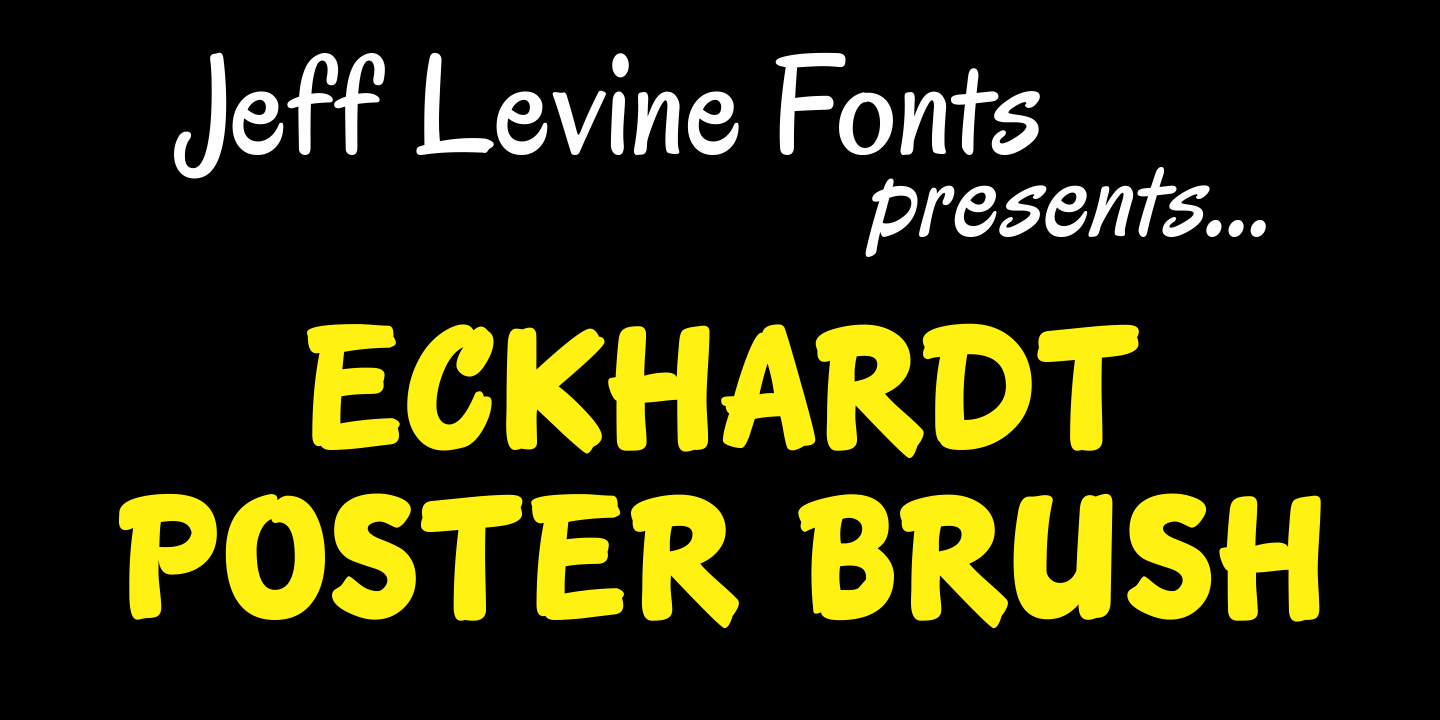
Eckhardt Poster Brush
Eckhardt Poster Brush JNL is part of a series of fonts emulating many of the various styles of hand lettering employed by sign painters and show card writers. The series is named in honor of the late Albert Eckhardt, Jr. - a talented sign writer and a good friend of the font's designer, Jeff Levine.
Eckhardt Poster Brush JNL Regular by Jeff Levine Fonts